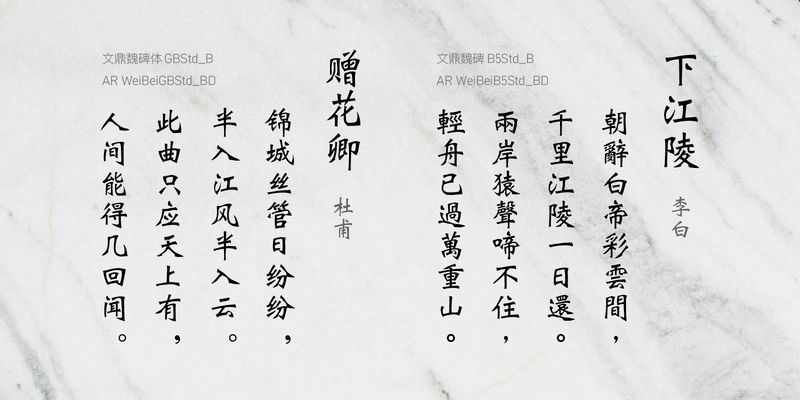
AR WeiBeiB5 not only couples hardness with softness, but it is also reminiscent of stone rubbings which results in a smooth and firm typeface. The modern Weibei is evolved from the traditional Weibei which originated from the Chinese stone rubbings of the Northern Dynasties.